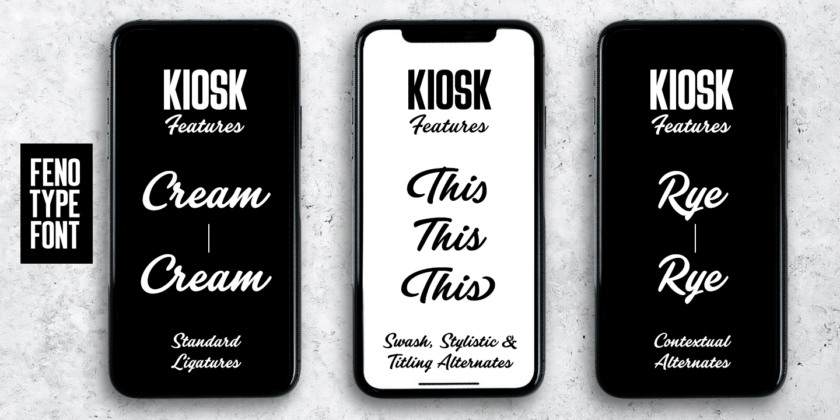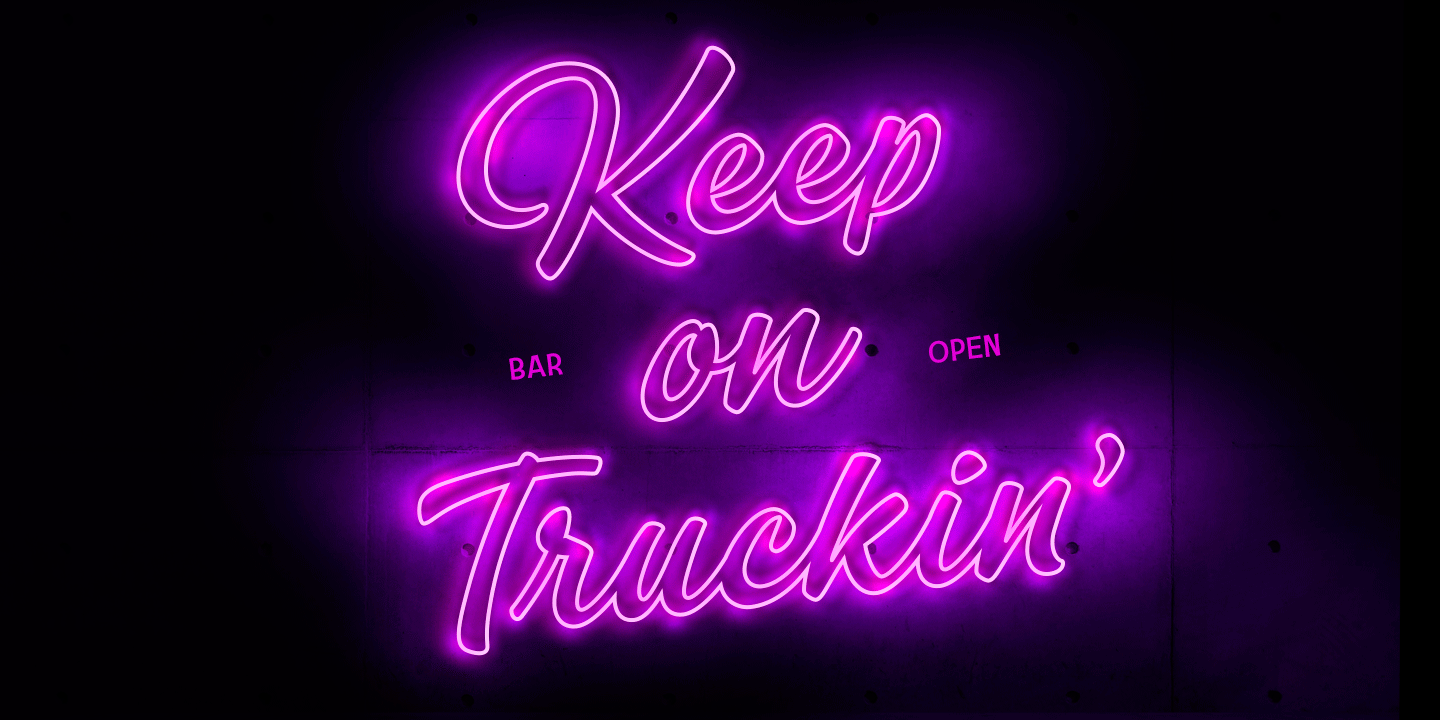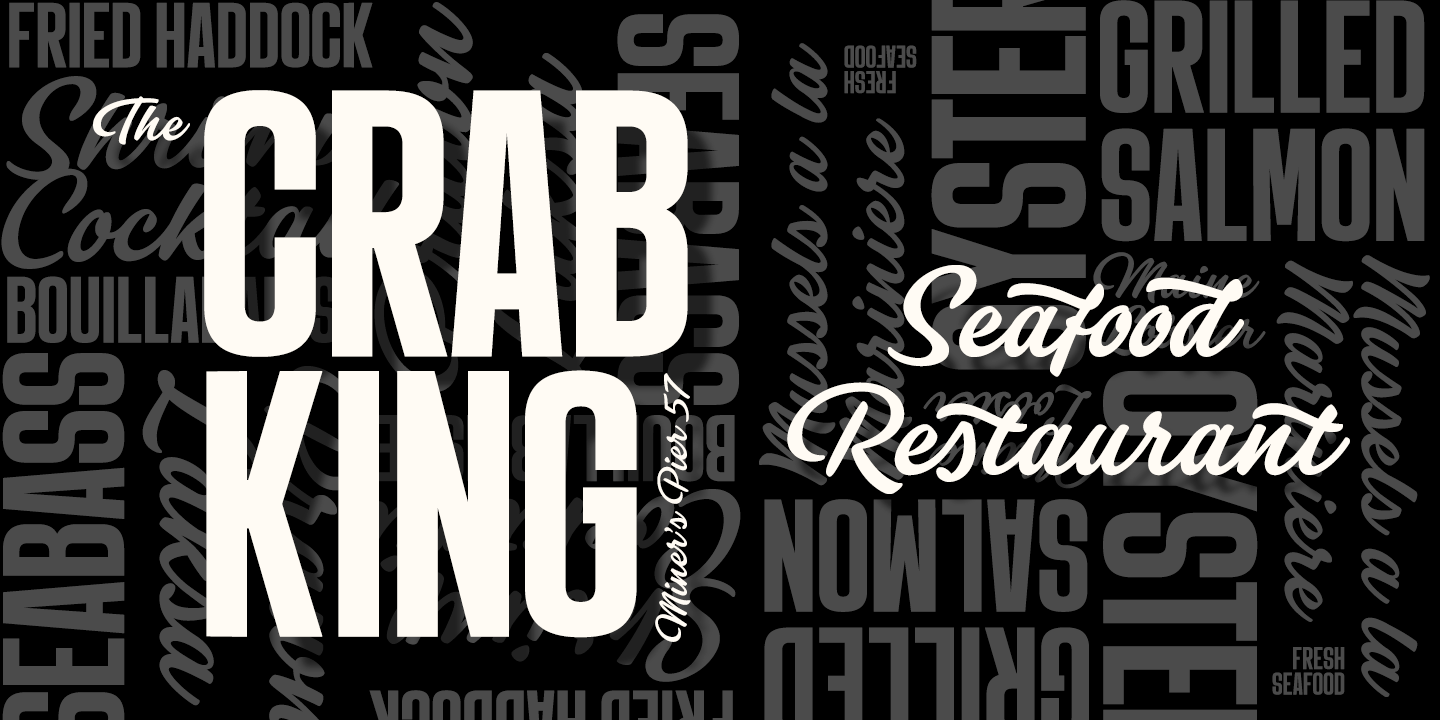
About Kiosk
Kiosk is a prominent display typeface pair. It is a sturdy condensed sans serif and an eloquent brush script. In addition there are textured ?print? versions of them both. Kiosk fonts work as a pair or as themselves. Sans is great for sturdy headlines,…